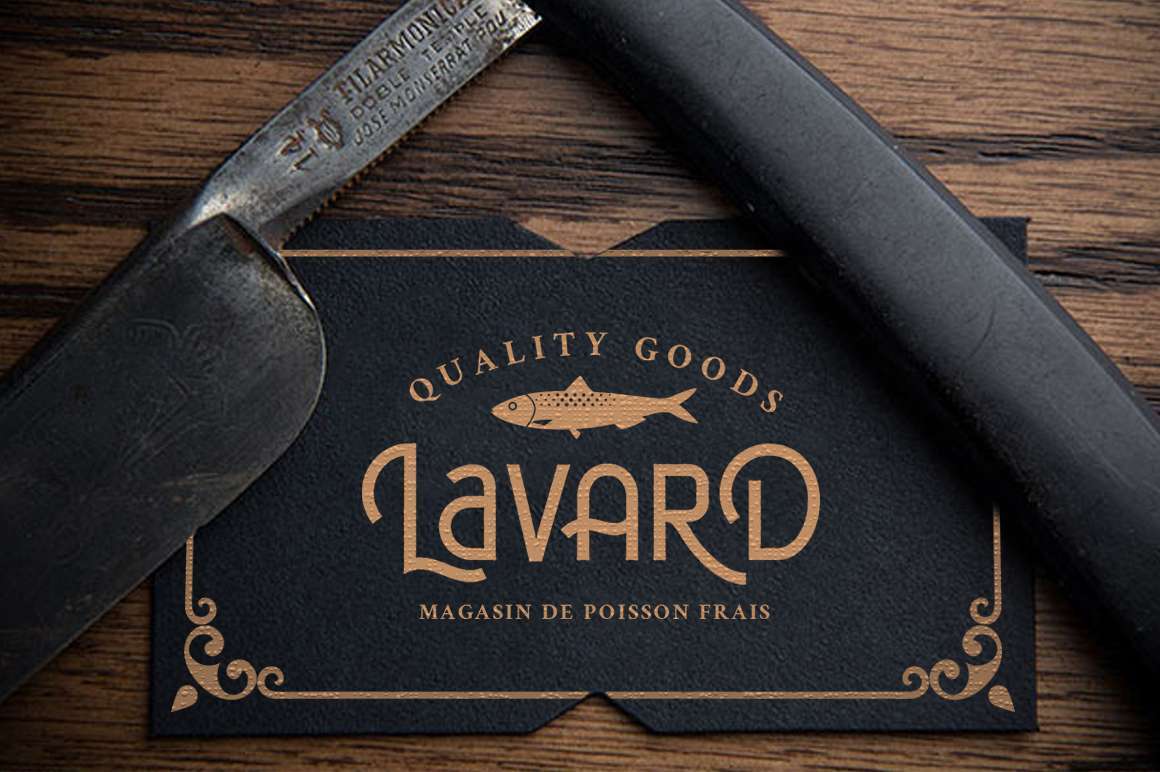
Vintage Font- DELFINA
Presenting Delfina Vintage Sans Serif Font
This free commercial font is a font inspired by vintage old American style. Bring back classic touch to this decade with this mind-blowing font.
It comes with a lot of alternative characters. The font is curated carefully to create the perfect texture and suitable for each of your projects.
The Delfina was created with careful consideration for usability and versatility.
This font may be conservative and classic, but it is also playful and modern.
This vintage font is an excellent choice for Digital Lettering Arts, Posters, Logotypes, Branding Designs, Logo Designs, Magazines, Signs, Advertising Designs, T-Shirts/Apparels, Coffee Shops, Cafe’s, Restaurants, Magazine’s, Gift/Post Cards and Weddings and any vintage design needs.
Features:
Upper + Lowercase Letters
OpenType features
Numbers + Punctuation
Accents (Multilingual characters)
(AÀÁÂÃÄÅCÇDÐEÈÉÊËIÌÍÎÏNÑOØÒÓÔÕÖUÙÜÚÛWYÝŸỲŸÆŒßÞ)